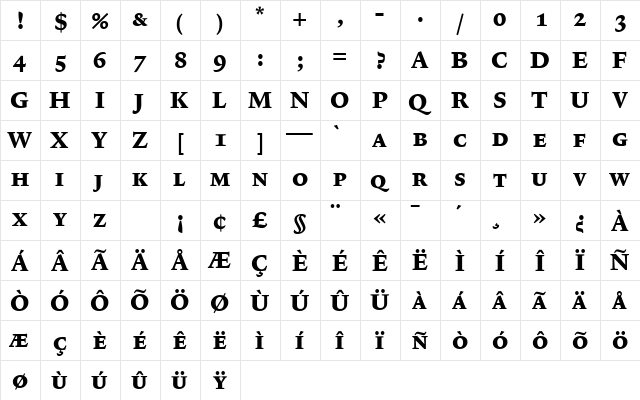
Lexicon No1 Roman E Exp
Design Context for Lexicon No1 Typeface
Lexicon No1 offers clean, dependable letterforms without strong stylistic allegiance, making it a practical choice for designers who need flexibility.